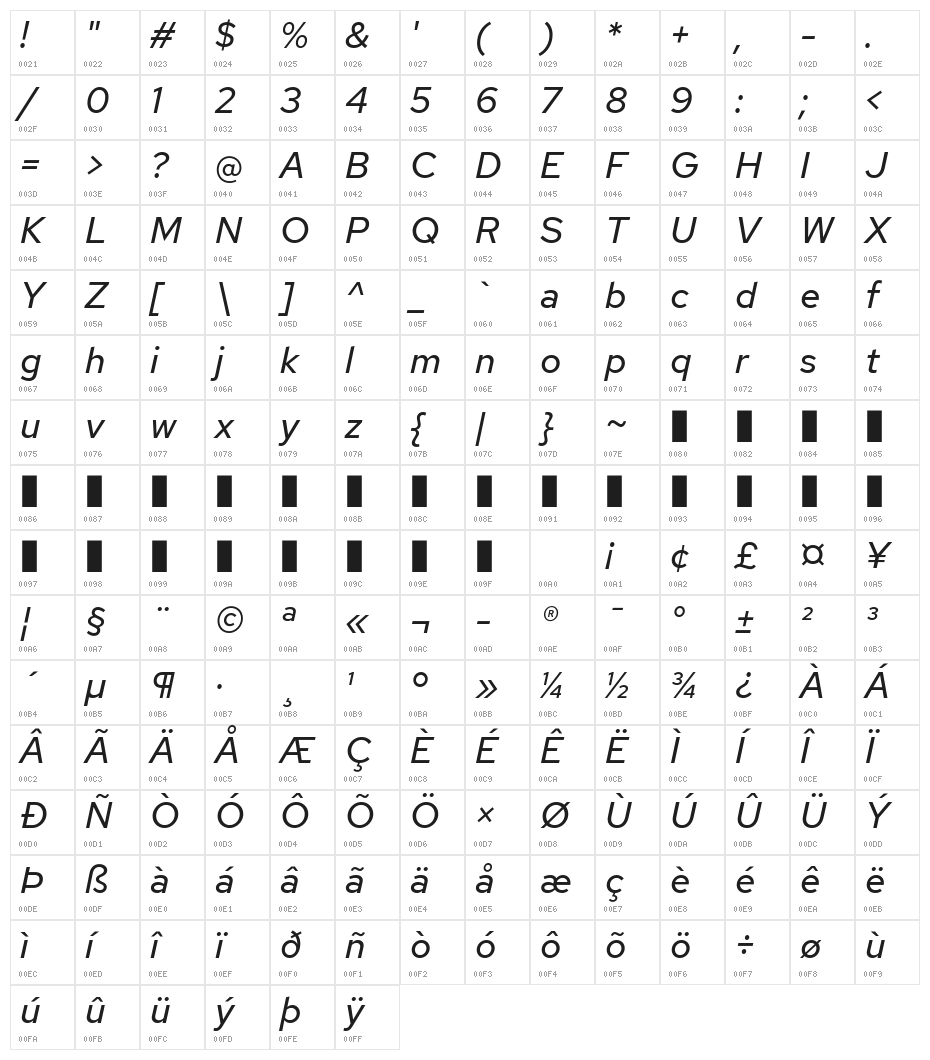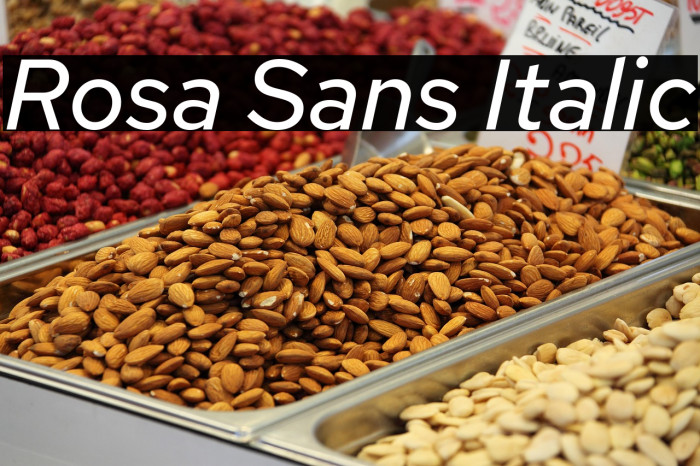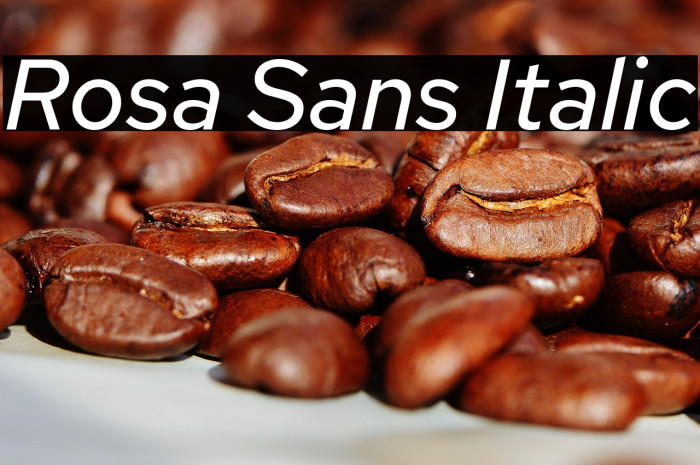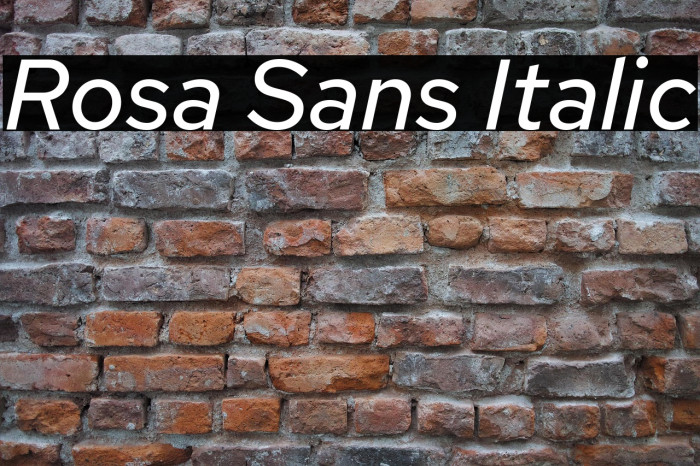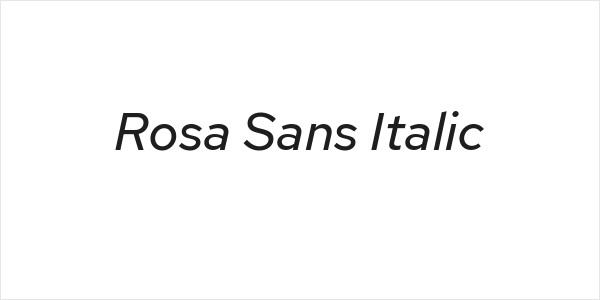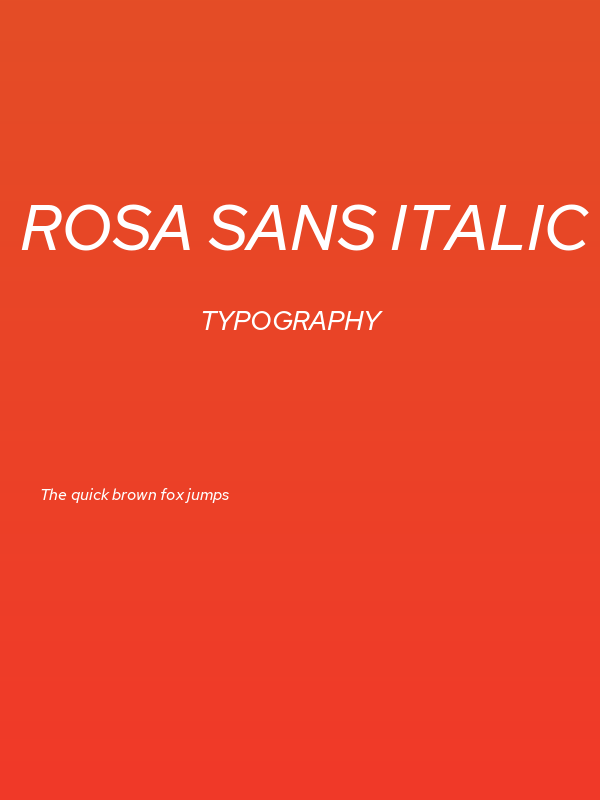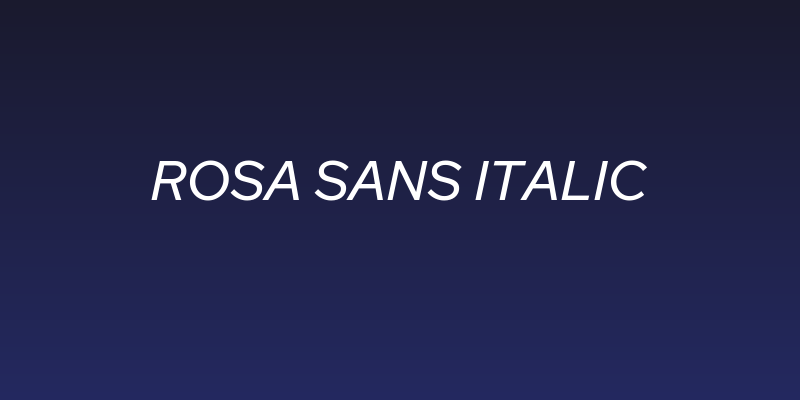
Rosa Sans Italic Font
Rosa Sans Italic Description
This font features a sleek and modern sans-serif design with a distinct italic slant, giving it a dynamic and contemporary appearance. The characters are well-proportioned, with smooth curves and clean lines that enhance readability. The uppercase and lowercase letters maintain a consistent style, while the numerals are clear and straightforward. Special characters are included, providing versatility for various design needs. The overall look is professional and stylish, making it suitable for a wide range of applications.
| Proposed Projects | Ideal for branding, advertising, digital content, and editorial design. |